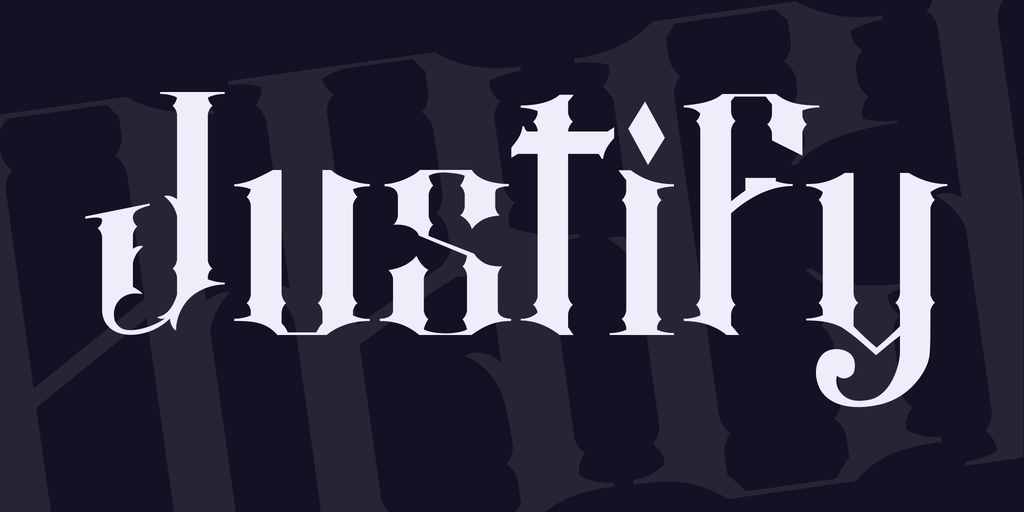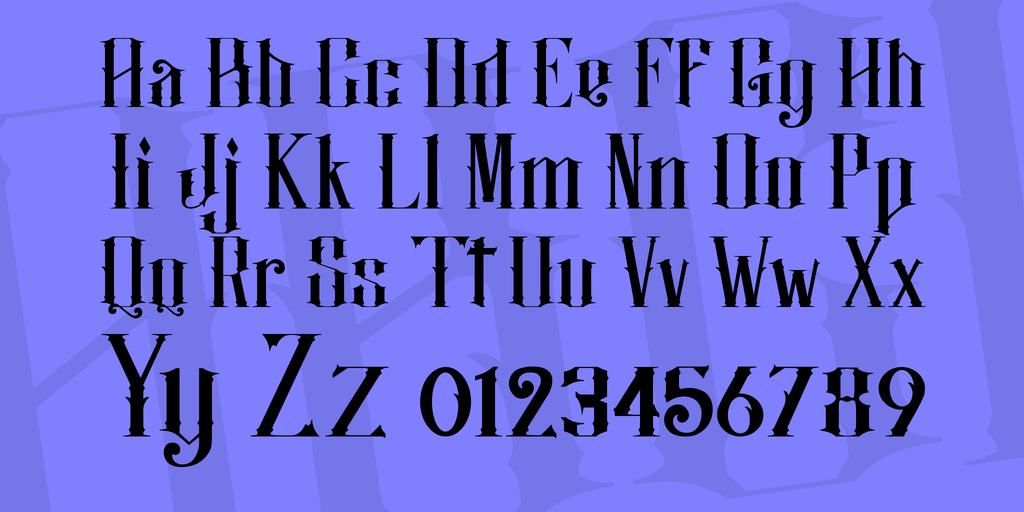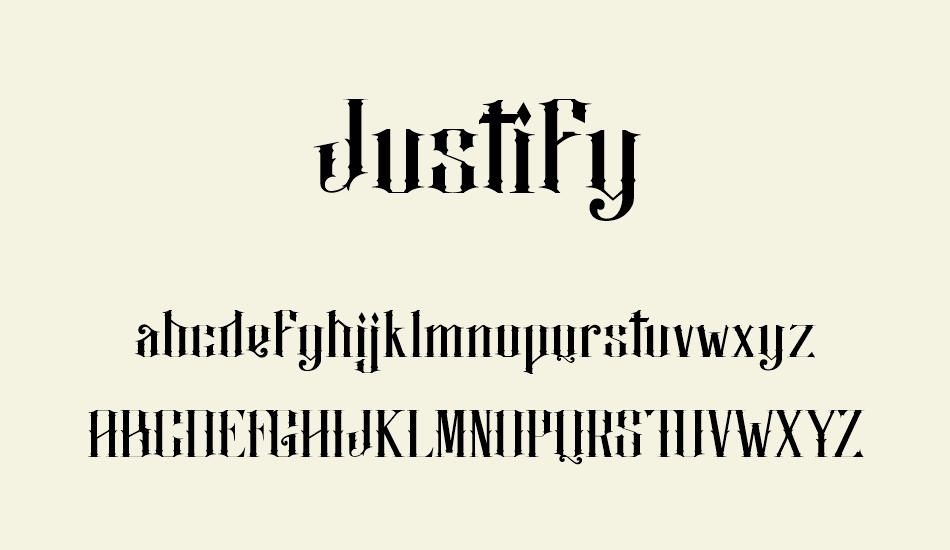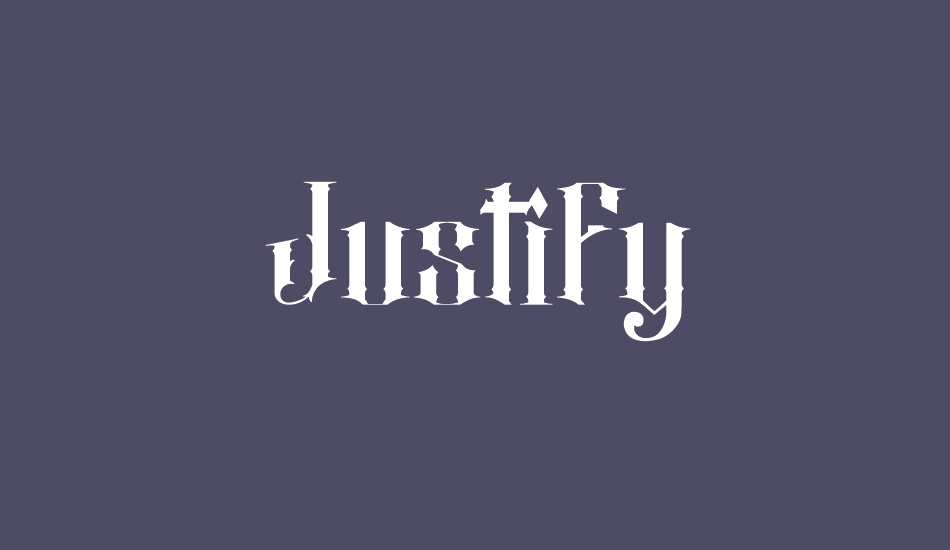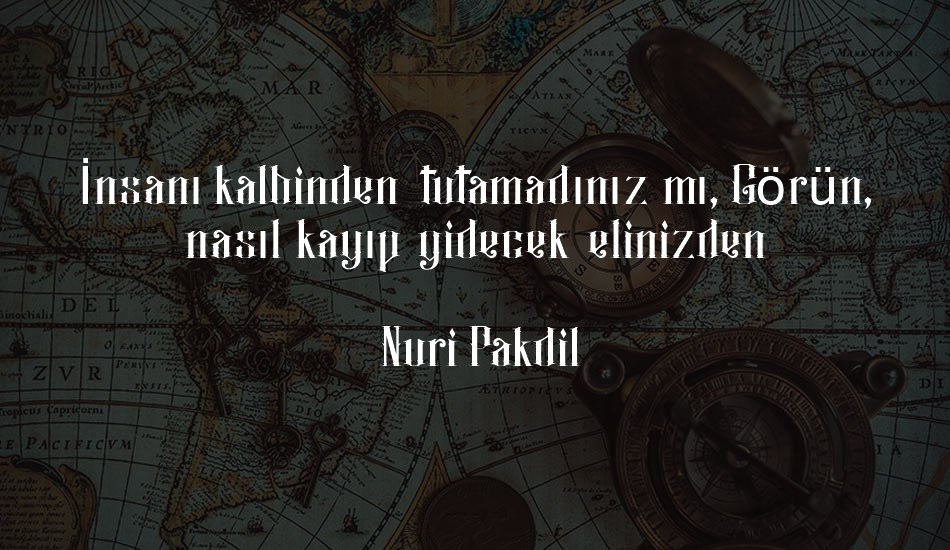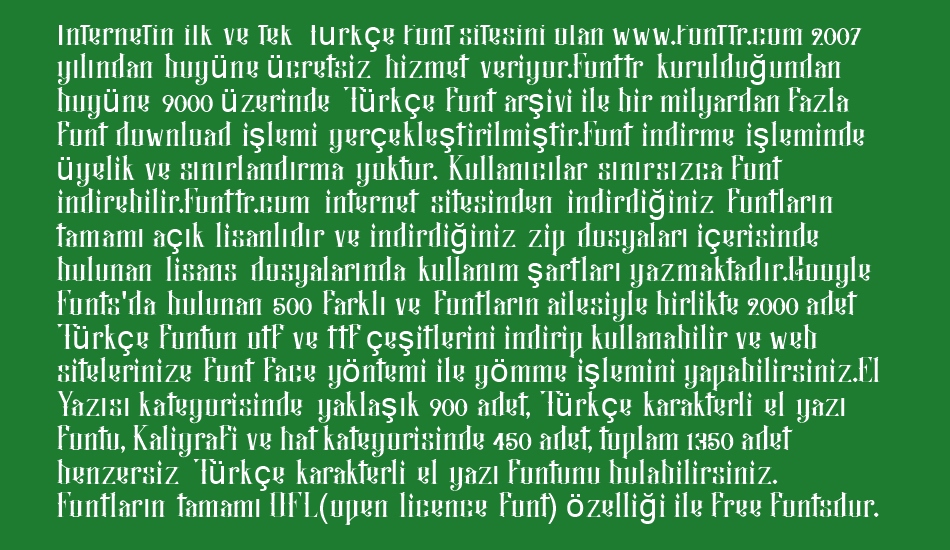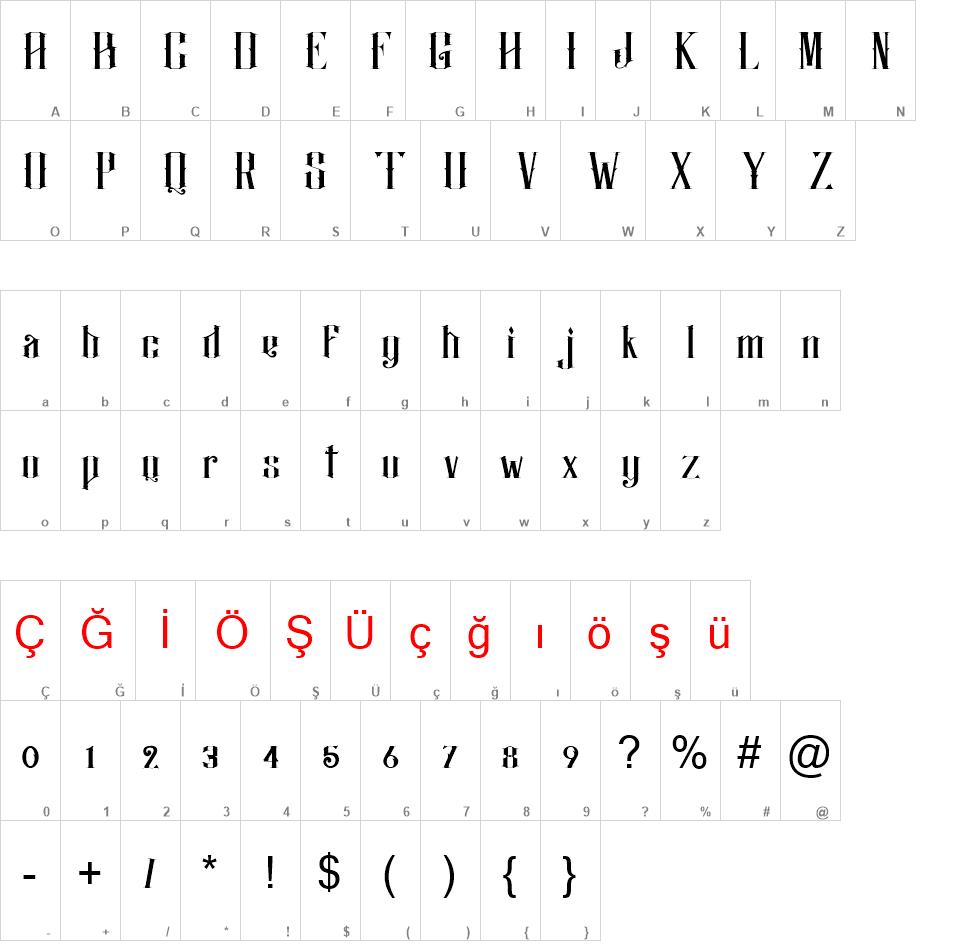
Justify
Justify font
Justify Fonts Package is a typeface inspired in tattoo letters! Justify have six style plus ornament, Justify perfect for all your designs project.
Feature
UPPERCASE
lowercase
Number & Symbol
International Glyps
Alternative UPPERCASE (ss01-ss02-ss03)
Alternative lowercase (alt01-alt02-alt03)
Ligature